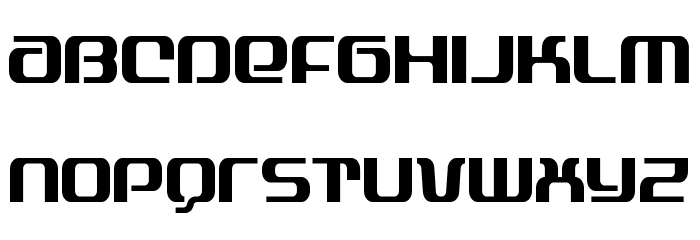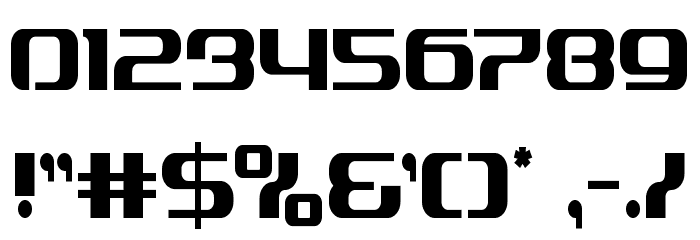
Yeoman Jack Condensed Font
This font features a bold, geometric design with a futuristic flair. The characters are constructed with a consistent stroke width, giving it a uniform appearance. The letterforms are condensed, maximizing space efficiency while maintaining readability. The design incorporates rounded edges and sharp angles, creating a dynamic and modern aesthetic. The uppercase and lowercase letters share similar structural elements, enhancing the cohesive look. The numerals and special characters follow the same stylistic approach, ensuring a harmonious overall appearance. This font is ideal for projects that require a strong, impactful visual presence.
A bold, geometric, and condensed font with a futuristic style.